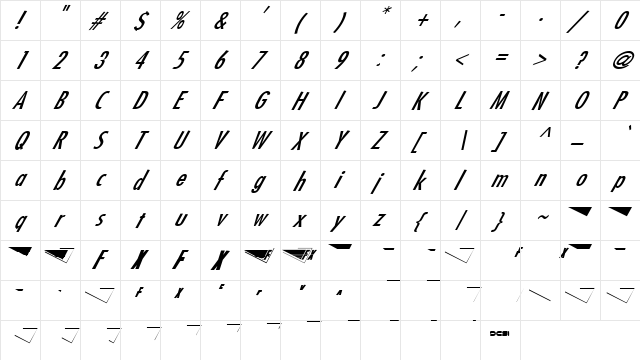
FFX Logo Italic Font Preview
FFX Logo Italic
FFX Logo Italic Font Details
Design Context for FFX Logo Typeface
FFX Logo is a composed and adaptable typeface that performs quietly and consistently across a wide range of design contexts. Its italic angle brings a sense of urgency and motion to the letterforms.
Pro Tip: Use FFX Logo for emphasis, pull quotes, and subheadings where its slanted energy can add rhythm to the layout.